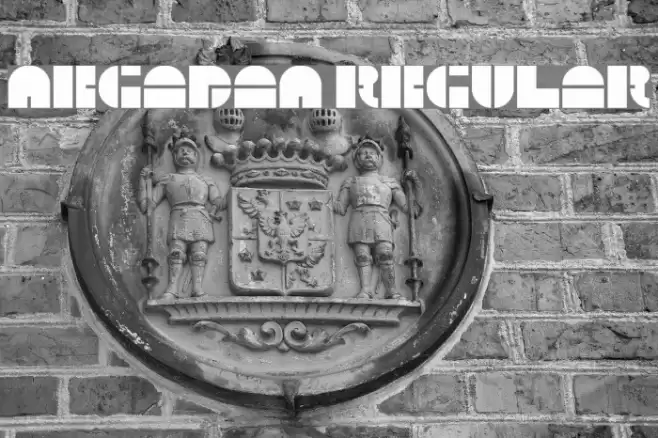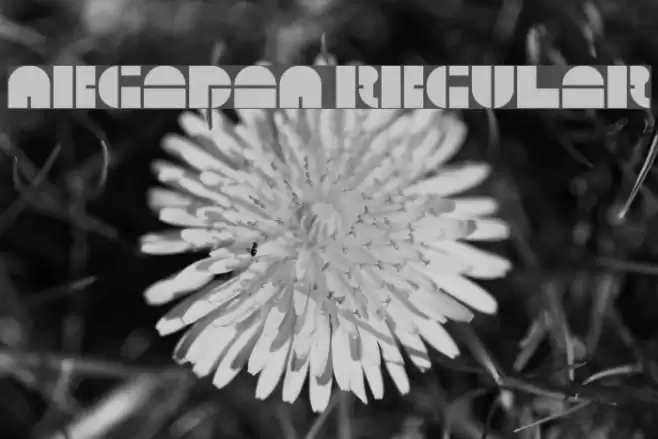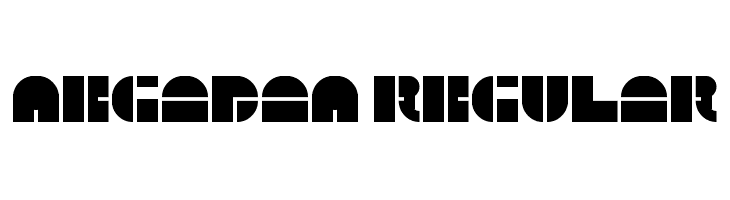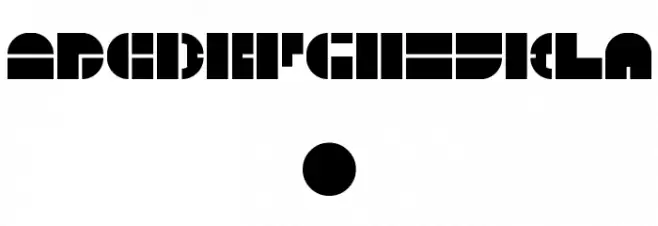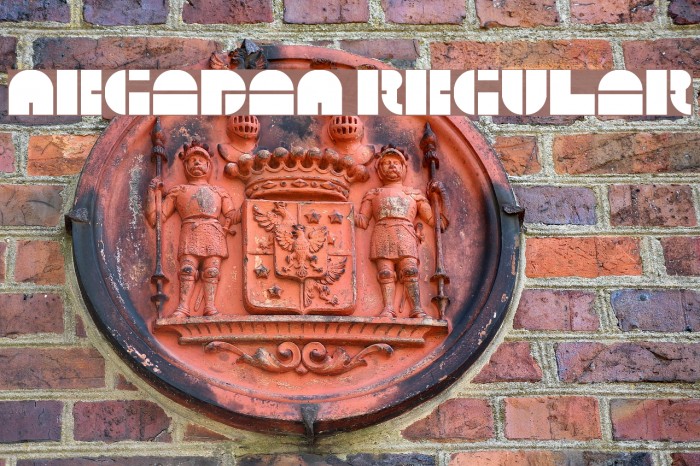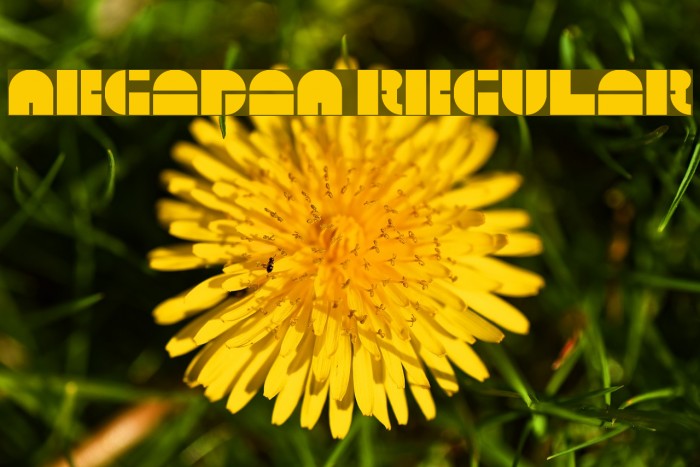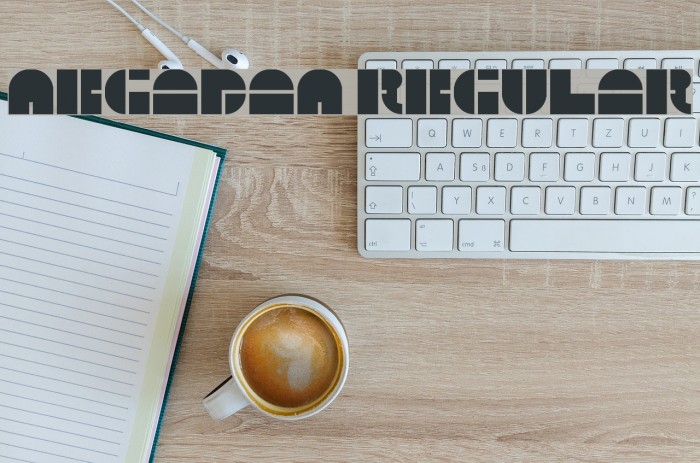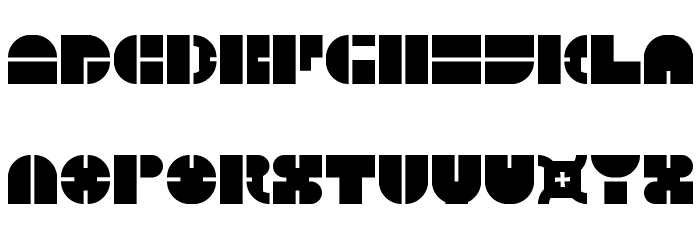
5Megabam Regular Font
5Megabam Regular Description
This font features a bold, geometric design with a distinct futuristic and industrial feel. The characters are constructed with solid, block-like shapes, creating a sense of strength and stability. The use of negative space within the letters adds a unique visual interest, making it stand out in any design. The uppercase letters are particularly striking, with their uniform height and width, while the lowercase letters maintain a similar aesthetic, ensuring consistency across the typeface. The font's design is highly stylized, making it suitable for modern and edgy projects.
A bold, geometric font with a futuristic and industrial style from Uncategorized fonts.
- Proposed Projects: Ideal for branding, posters, album covers, and any project requiring a modern, edgy look.
- Use Case: Logos, Headlines